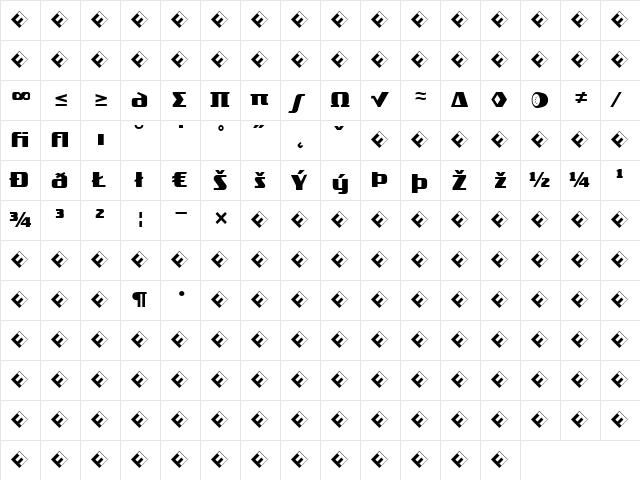
TradeMarker Bold Font Preview
TradeMarker Bold
TradeMarker Bold Font Details
Design Context for TradeMarker Typeface
TradeMarker offers clean, dependable letterforms without strong stylistic allegiance, making it a practical choice for designers who need flexibility. The heavy weight commands attention and anchors typographic hierarchies.